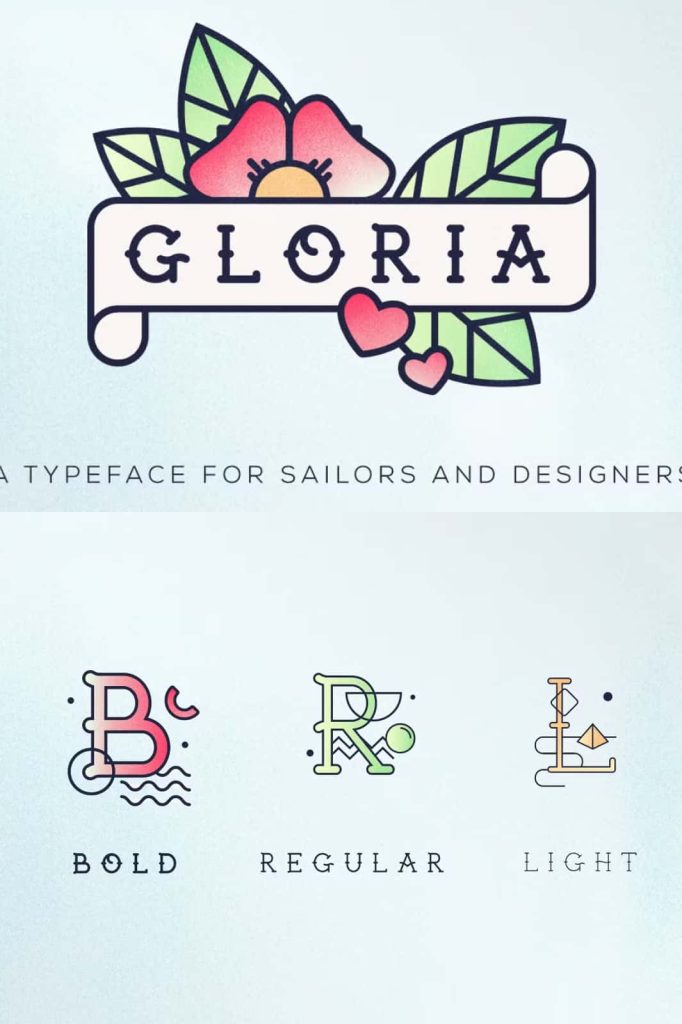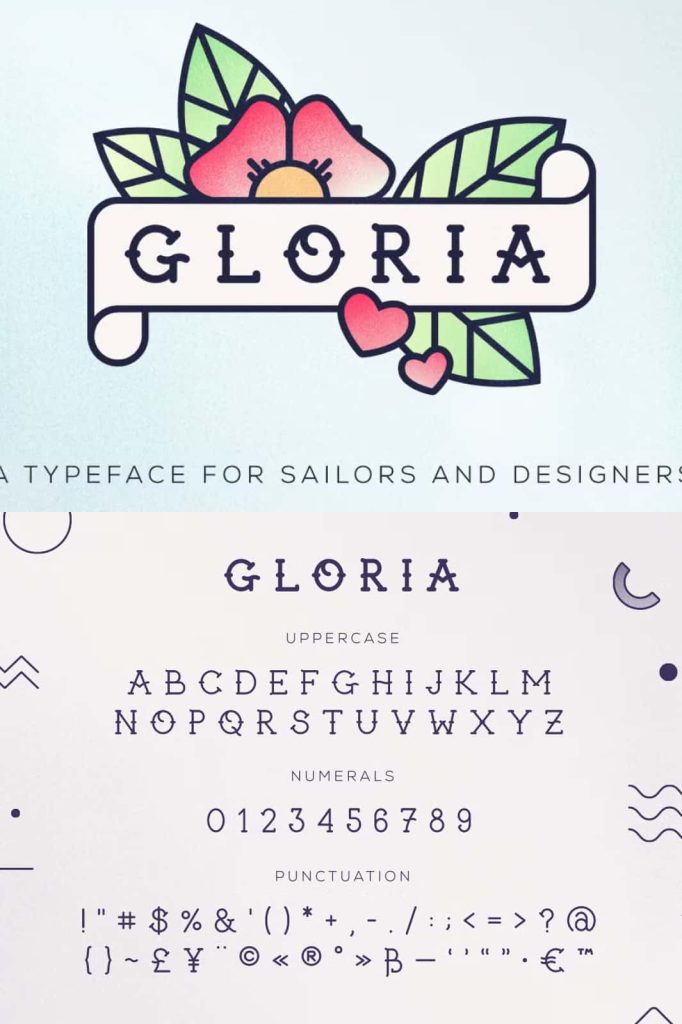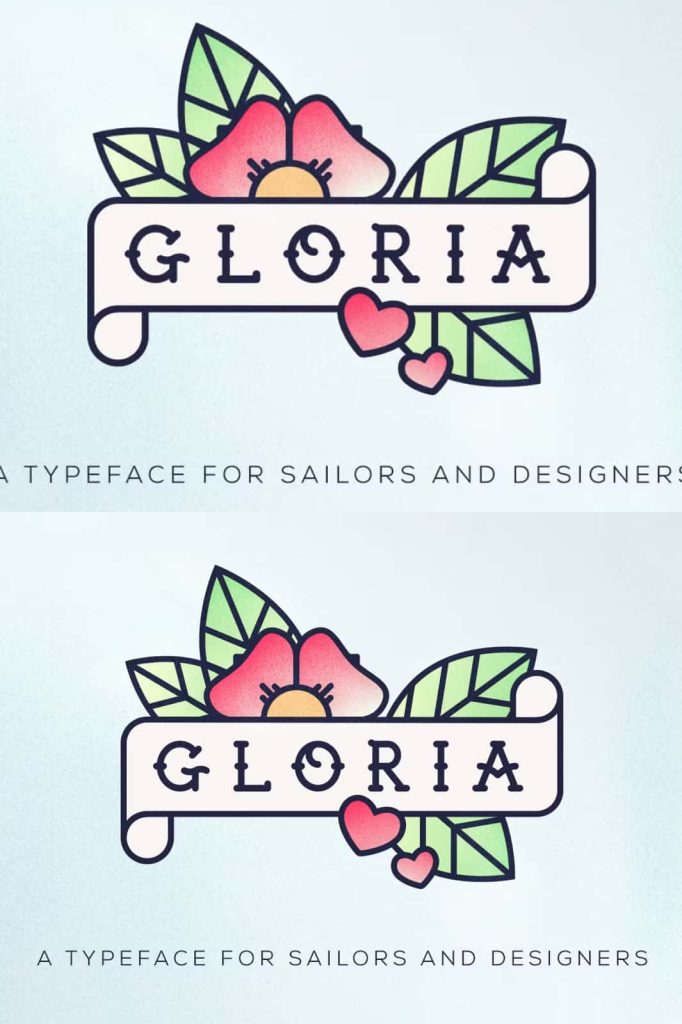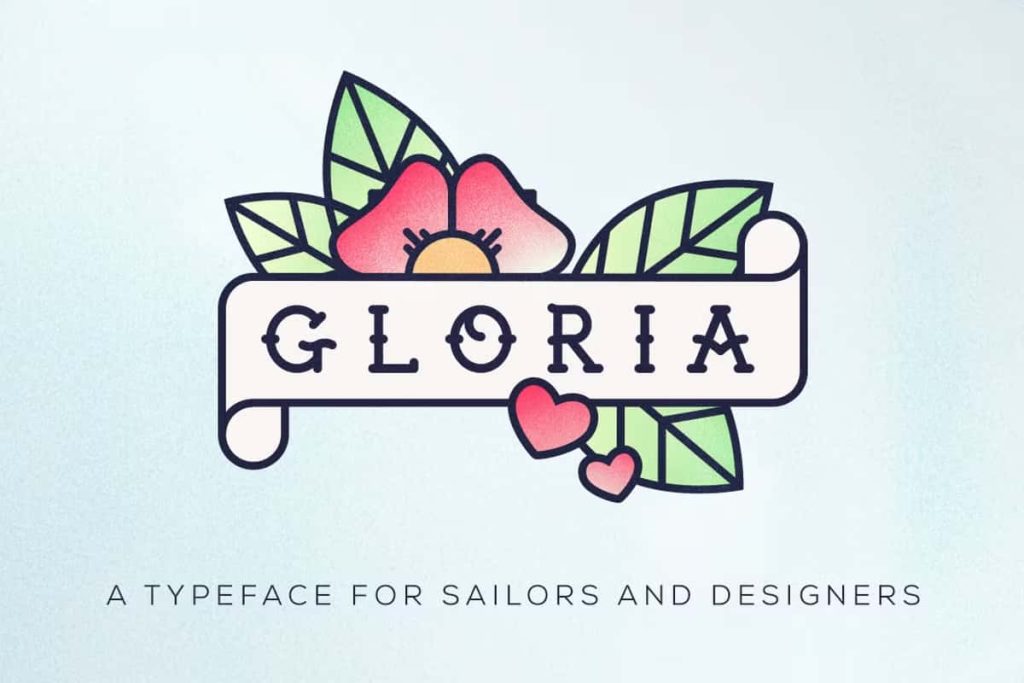
Gloria TypefaceleastedJanuary 10, 2025Fonts Gloria is a carefully crafted font that is inspired by vintage tattoo lettering. Very popular with sailors in the 50’s and later but still today often seen on people bodies. Download